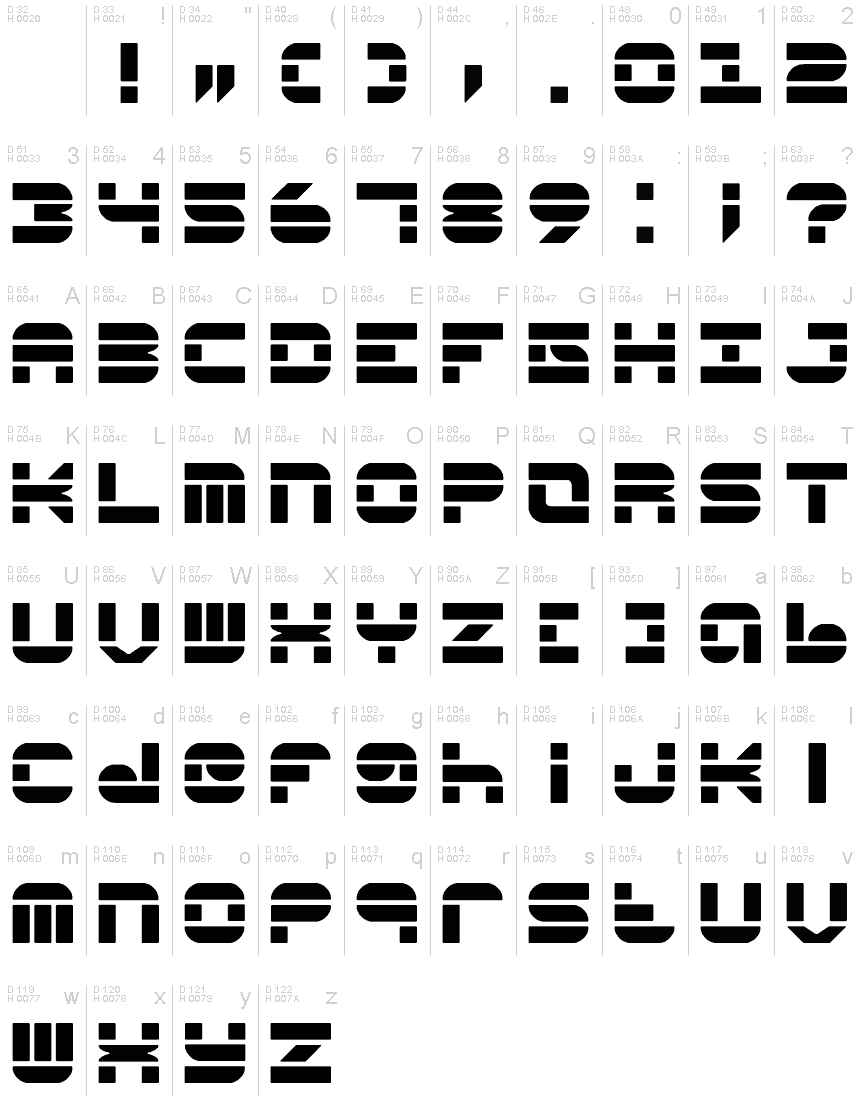
Pseudo BRK
"Pseudo BRK" is a bold, expanded display typeface designed by Ænigma, exuding a striking techno aesthetic. The sharp, angular letterforms and distinctive triangular terminals lend this font a futuristic, industrial-inspired charm. Pseudo BRK's uncompromising lines and expansive width make it an impactful choice for attention-grabbing headlines, digital interfaces, and branded materials that seek to convey a sense of technological prowess and modern edge.
Its unique style could elevate visual identities across a range of industries, from high-tech products to avant-garde fashion and music applications.